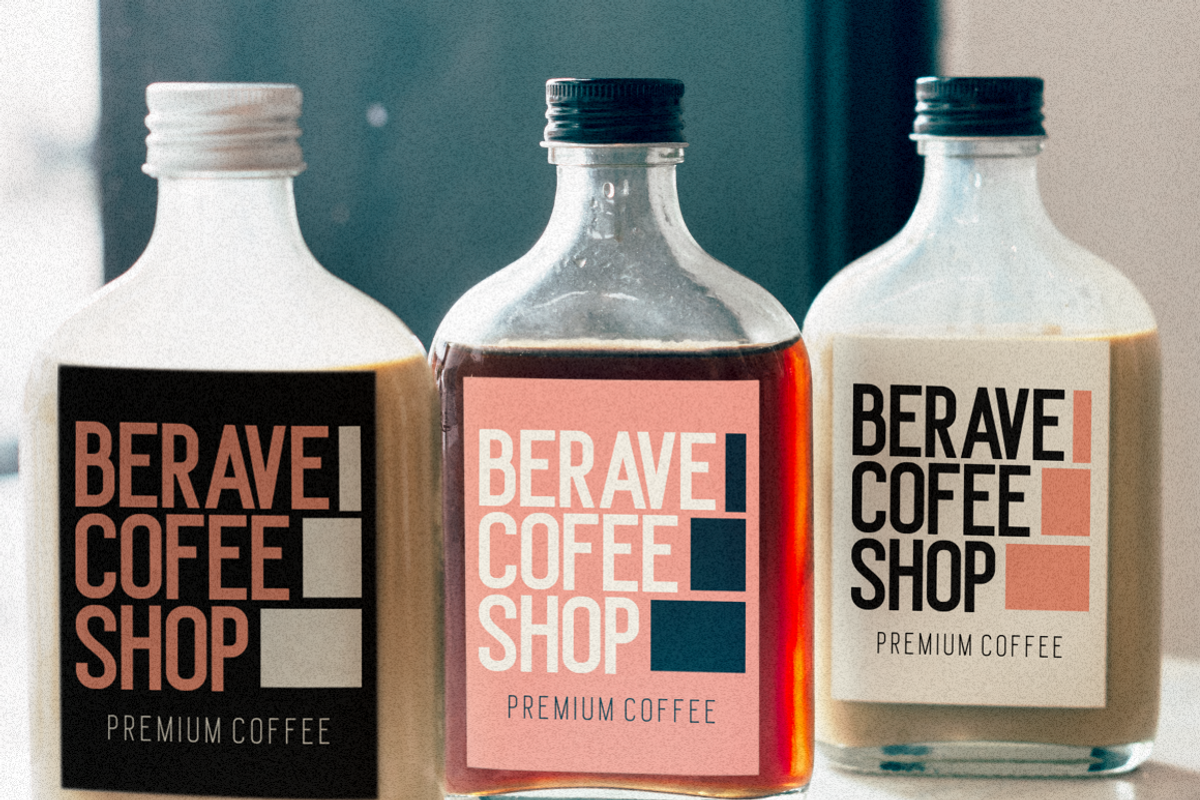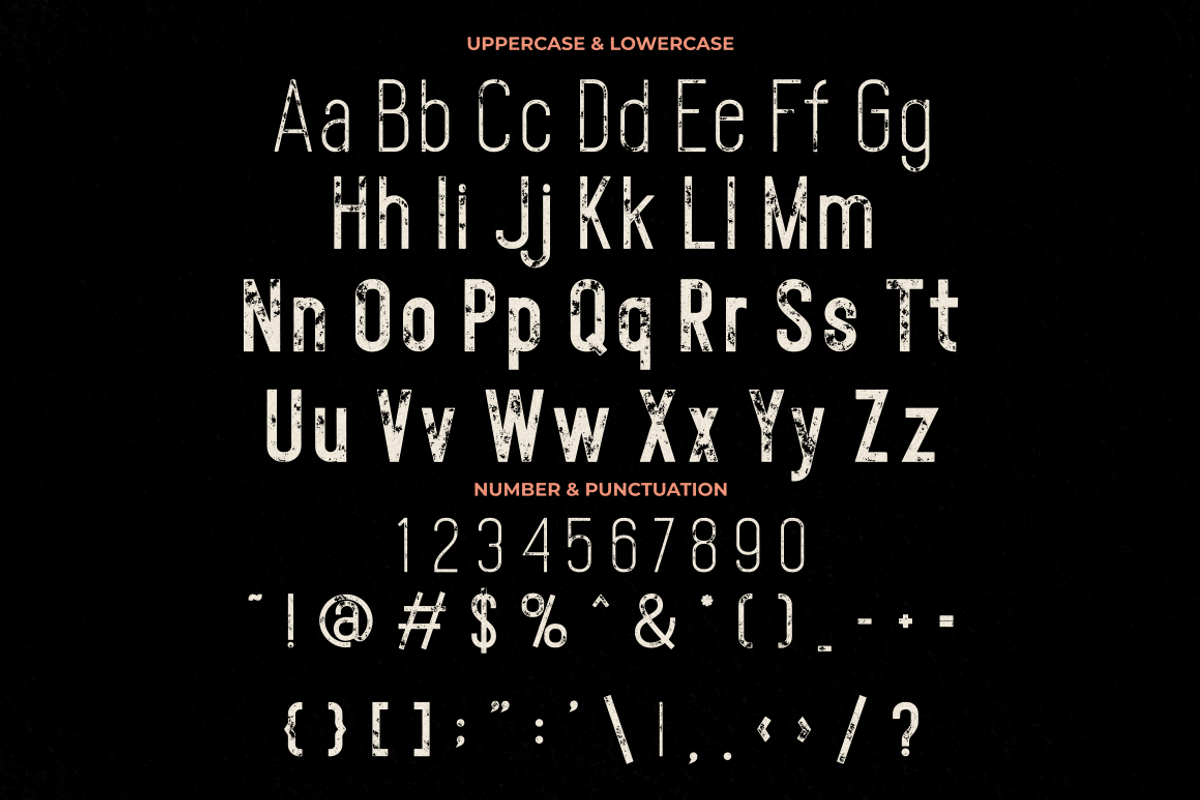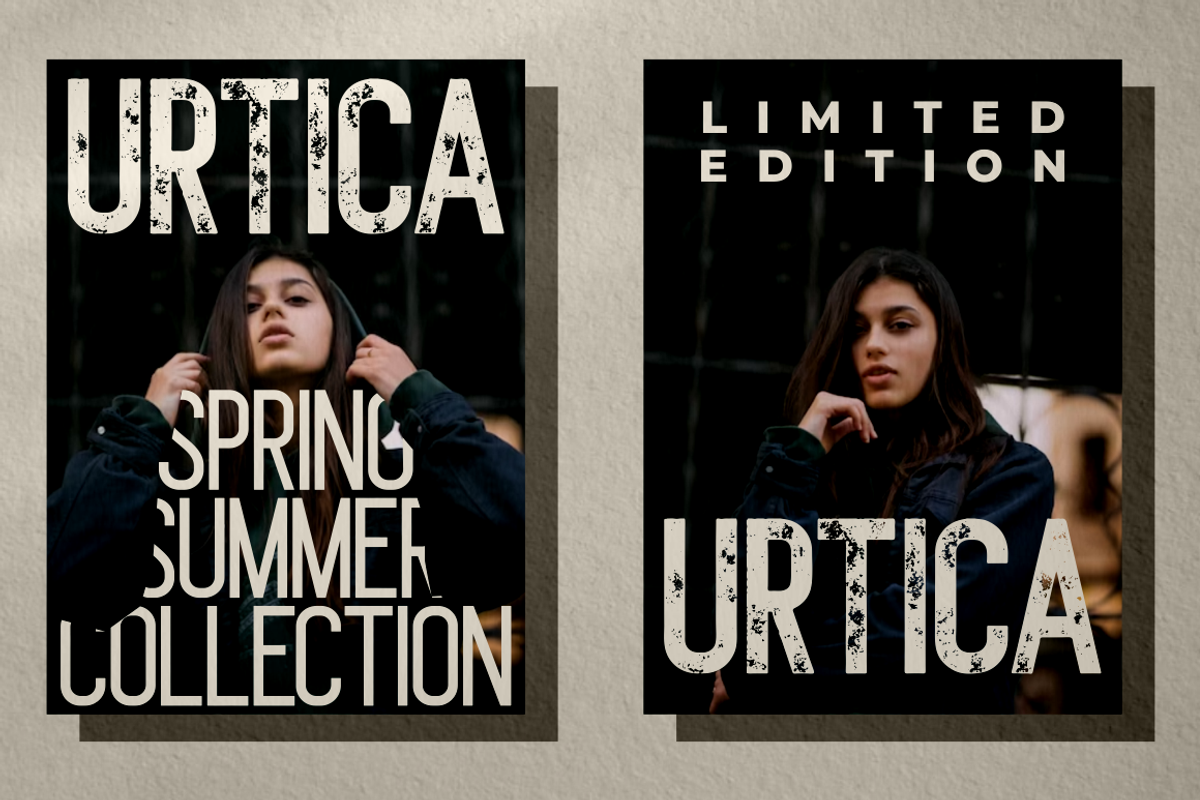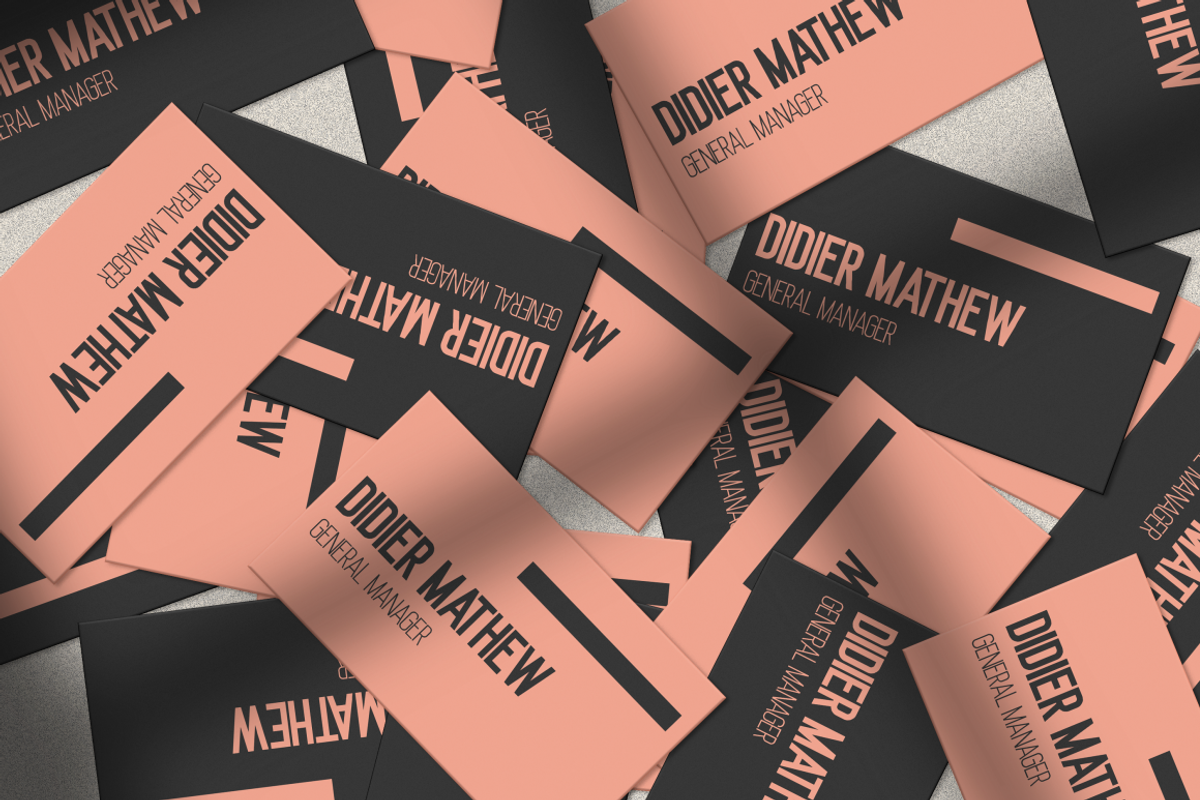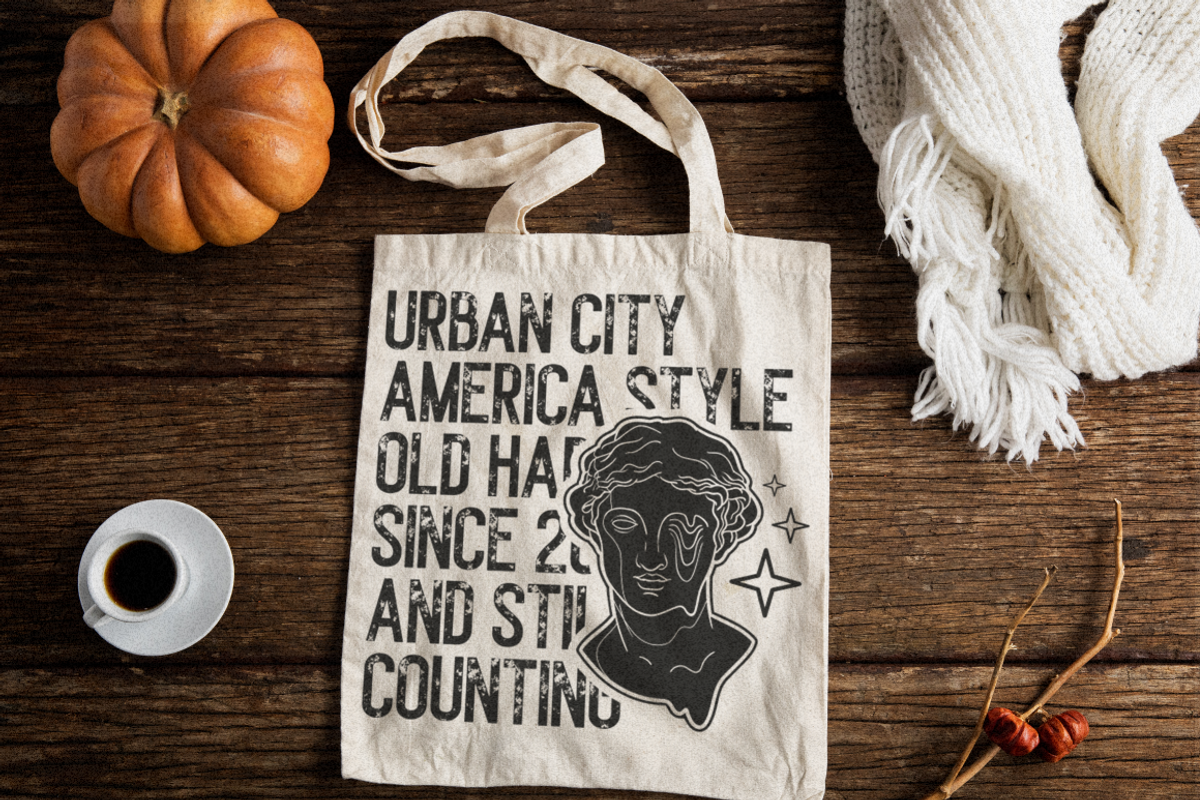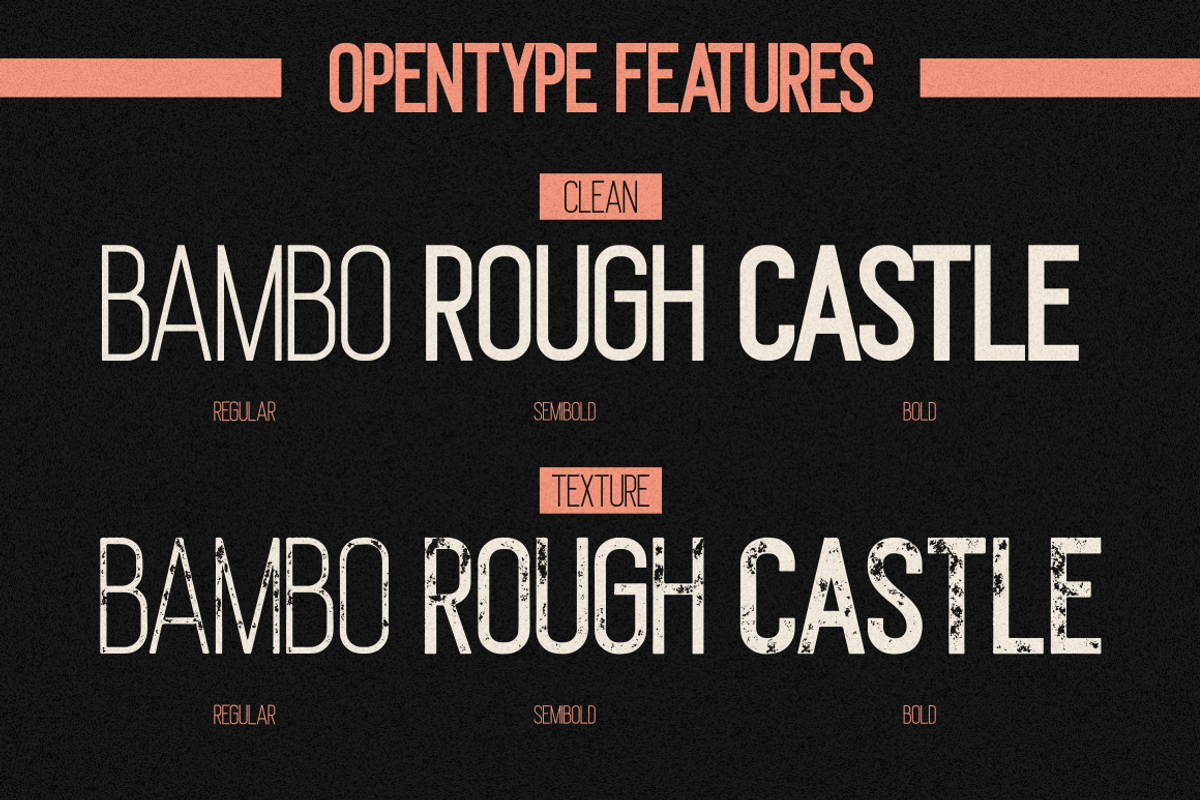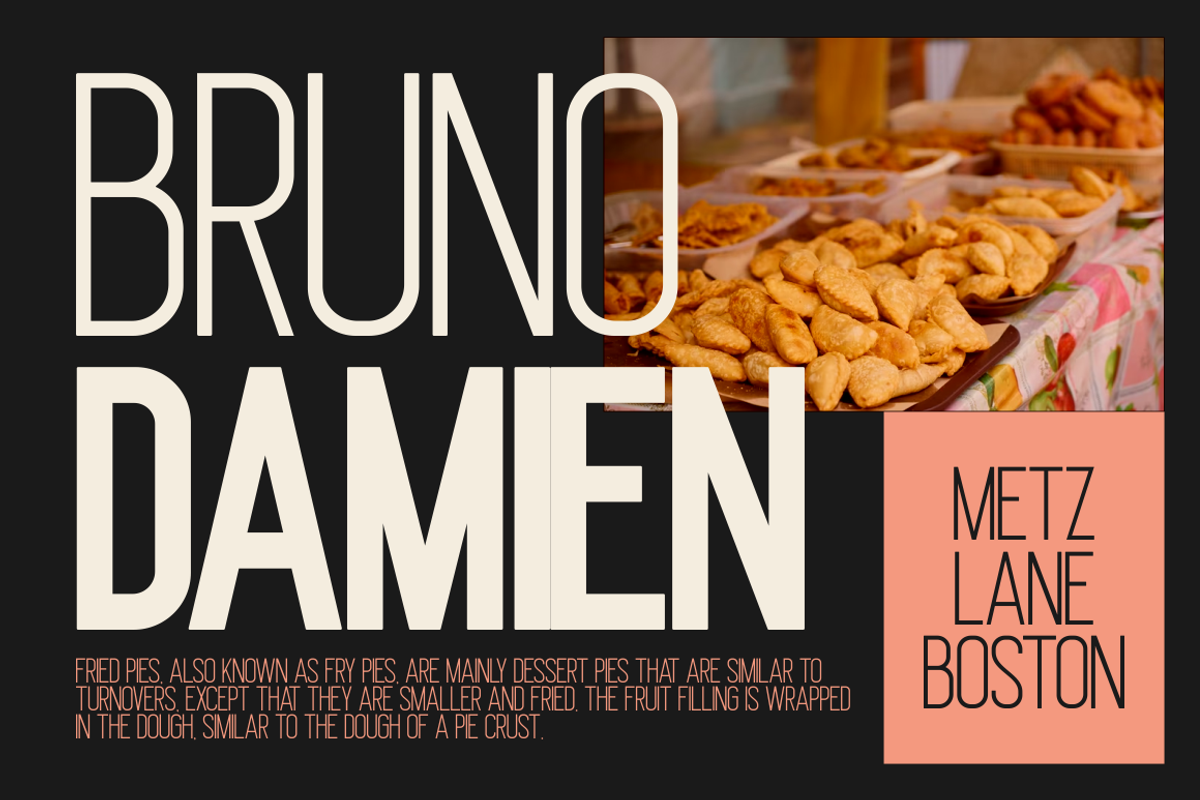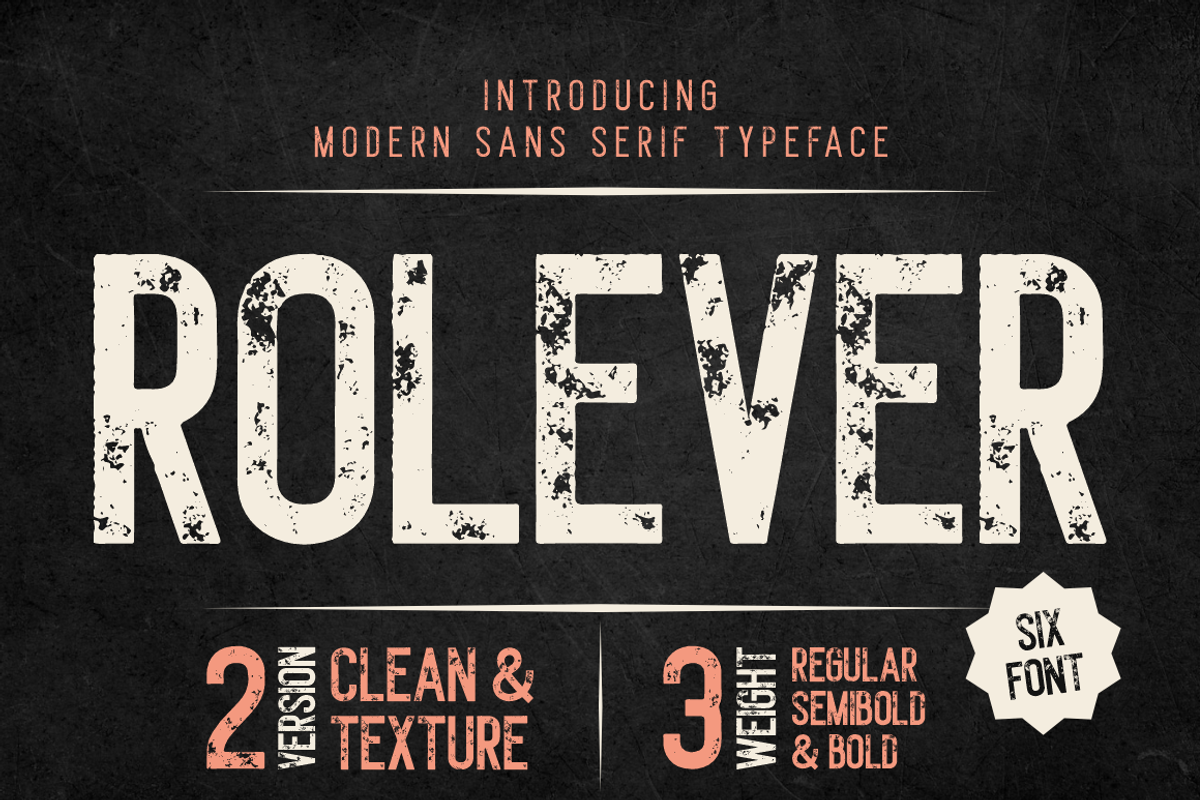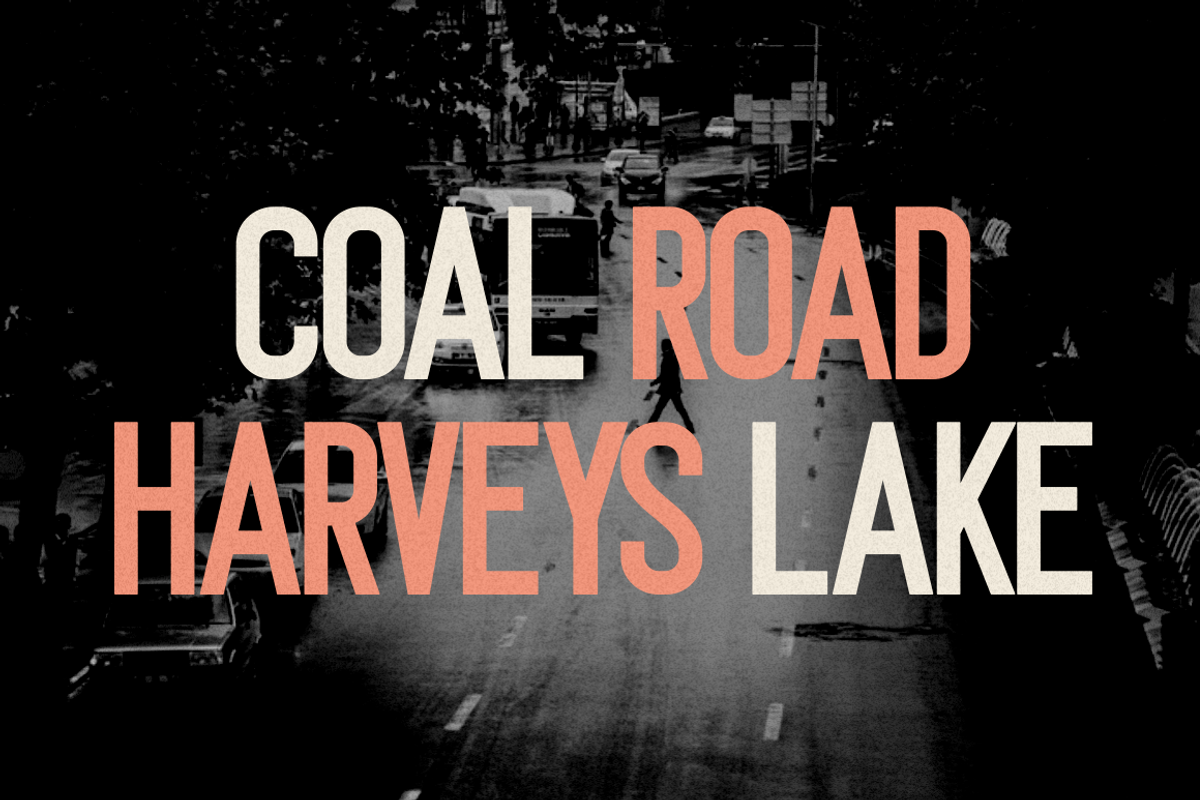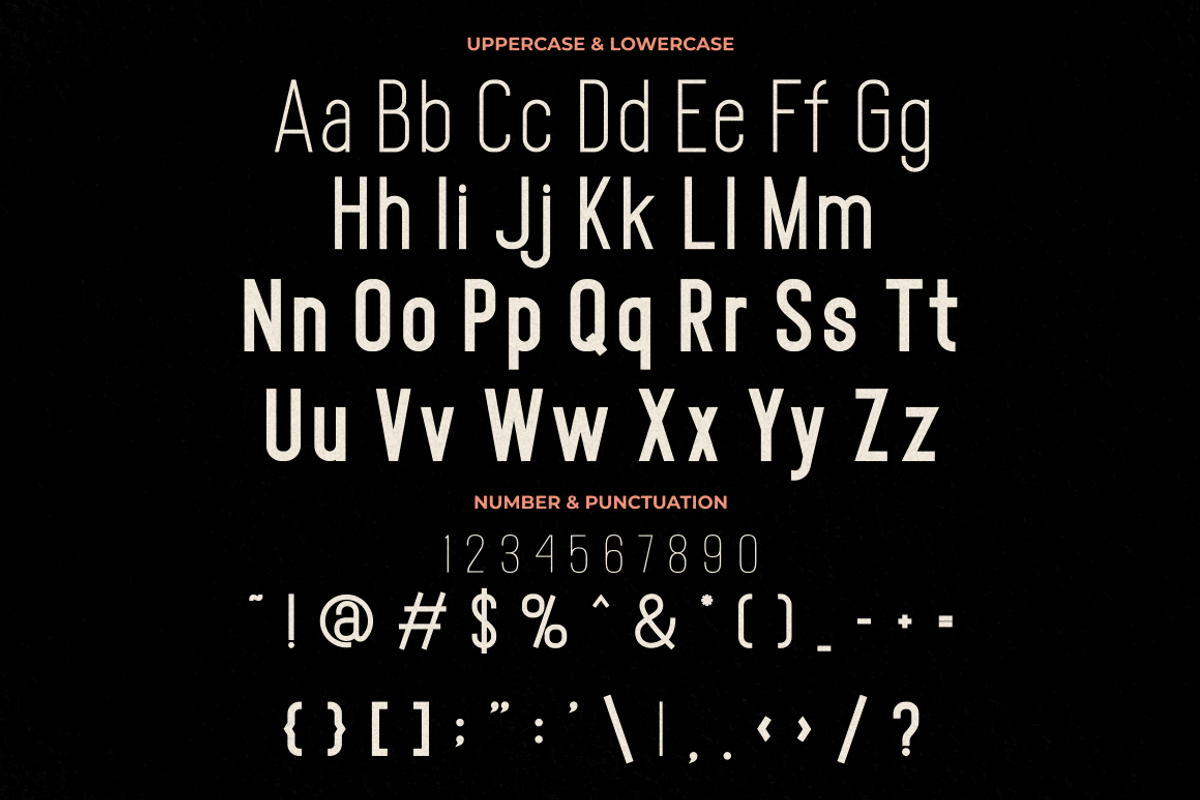
Rolever - Modern Sans Serif Font
Elevate your designs with Rolever - Modern Sans Serif Font. This versatile typeface boasts three distinct weights - regular, semibold, and bold - allowing you to infuse your creations with a range of visual impact. With two versions available - clean and textured - Rolever offers design flexibility that caters to your unique preferences. Its modern and elegant aesthetic makes it an ideal choice for a wide spectrum of applications, including posters, logos, titles, branding, printing materials, magazines, books, greeting cards, invitations, and more.
Rolever - Modern Sans Serif Font opens doors to a world of design possibilities. With its three distinct weights - regular, semibold, and bold - you have the tools to convey different levels of emphasis in your projects. The availability of both clean and textured versions further enhances your creative toolkit. Its contemporary and elegant design elements make Rolever a perfect match for a myriad of creative ventures, such as poster design, logo creation, title styling, branding materials, printing projects, magazine layouts, book typography, greeting card embellishments, and invitation compositions.